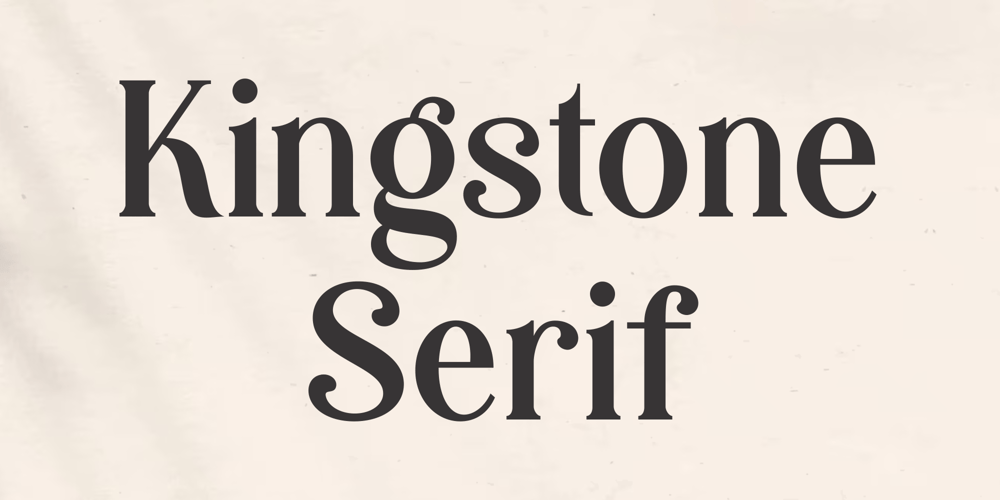
Kingstone Serif
Kingstone Serif font
Kingstone Serif Font Family was designed by Roland Hüse and published by Unitype Studio. Kingstone Serif contains 1 styles and family package options. Introducing the majestic “Kingstone Serif Fonts,” a typeface that exudes power, elegance, and timeless appeal. With its commanding presence and exquisite details, this font is designed to make a bold statement in your designs.Let the “Kingstone Serif Fonts” reign over your projects and elevate them to new heights of sophistication. Its sturdy serifs and balanced letterforms exude a sense of authority, making it ideal for prestigious branding, editorial designs, and luxury packaging.